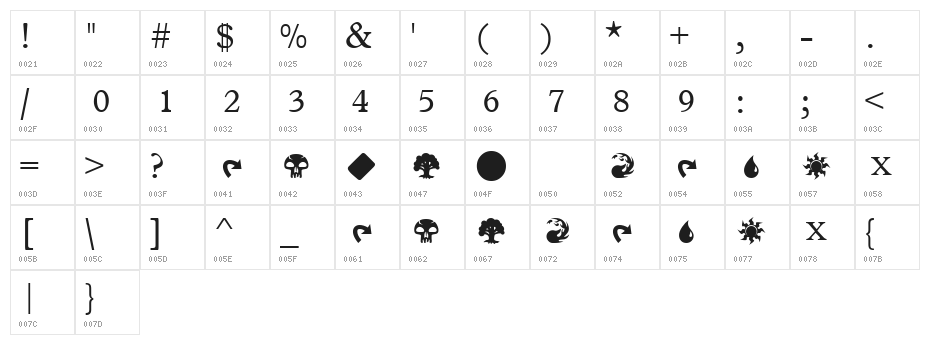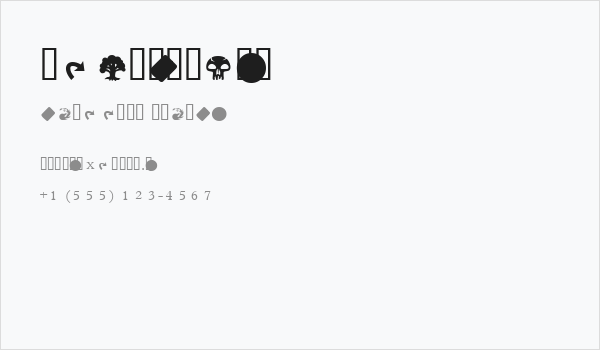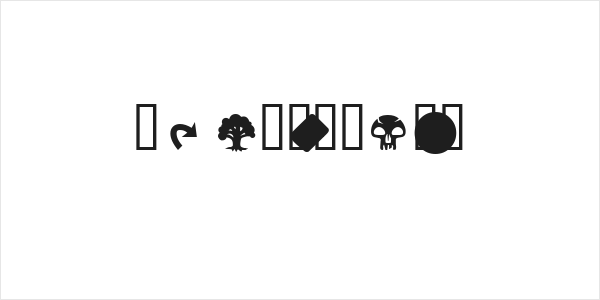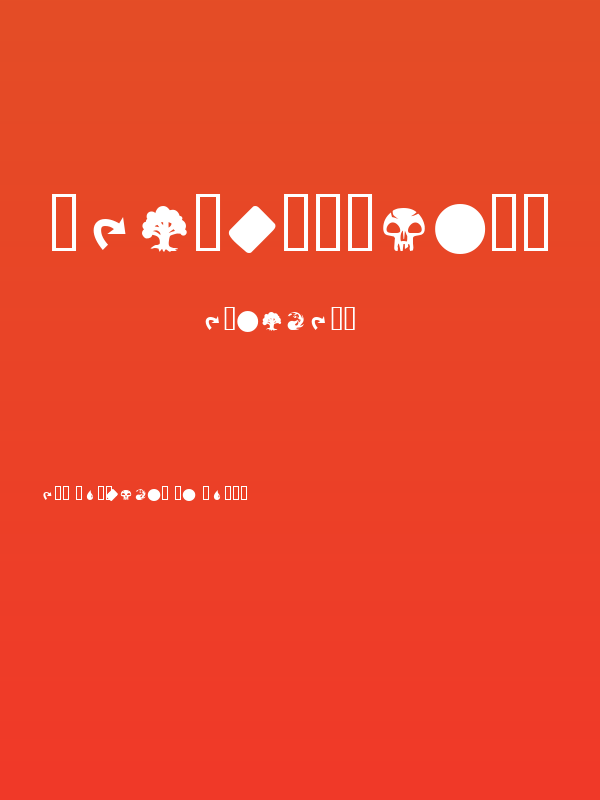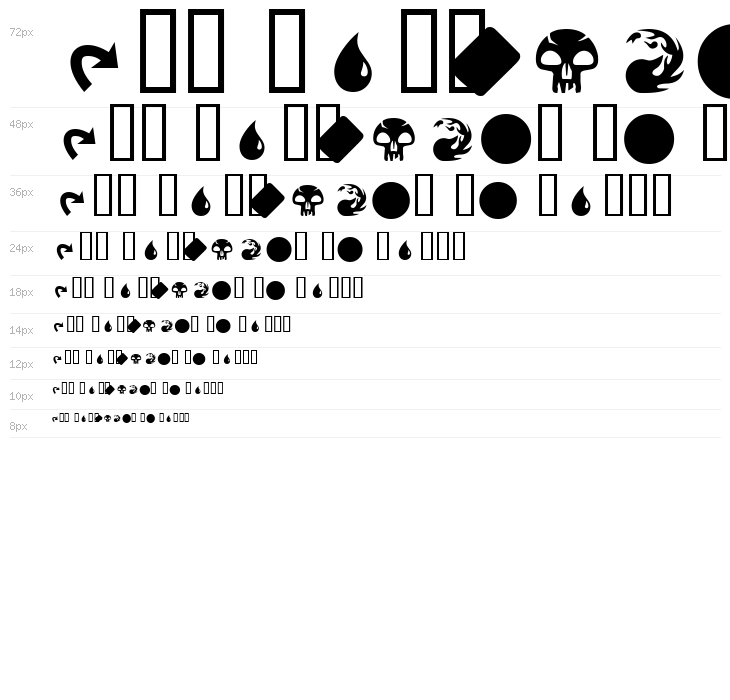
MagicSymbols Font
MagicSymbols Description
This set of symbols is inspired by fantasy and gaming elements, featuring a variety of iconic shapes such as skulls, trees, and elemental symbols like fire and water. The symbols are bold and distinct, making them easily recognizable and suitable for thematic designs. The numbers and special characters are styled to match the magical and mystical theme, with a consistent boldness and clarity. These symbols are perfect for adding a touch of fantasy to any project, whether it's a game, a themed event, or a creative design piece.
| Use Case | Logos, Decorative elements, Themed designs |
| Proposed Projects | Ideal for fantasy games, themed events, creative design projects, and decorative purposes. |